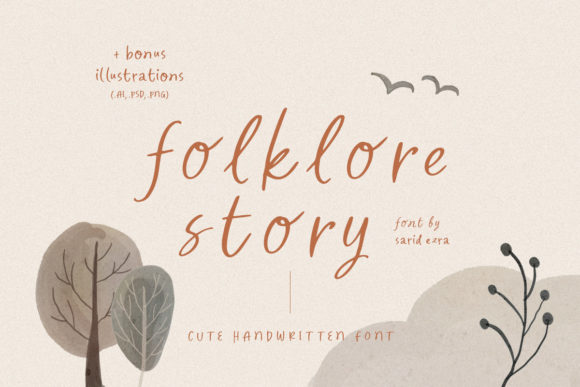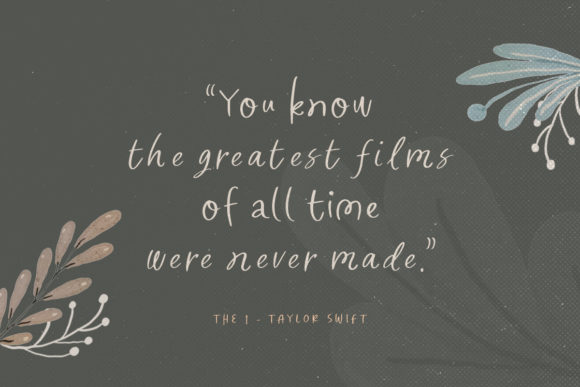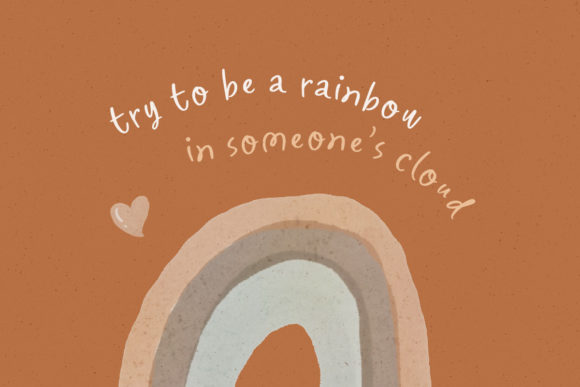
About Folklore Story Font
Folklore Story is a beautiful and flowing script font. Dainty and lovely, this font will make each of your designs look natural and versatile. Add it confidently to your favorite creations and let yourself be amazed by the outcome generated.